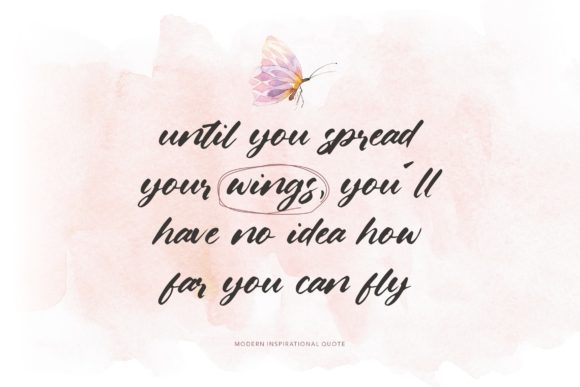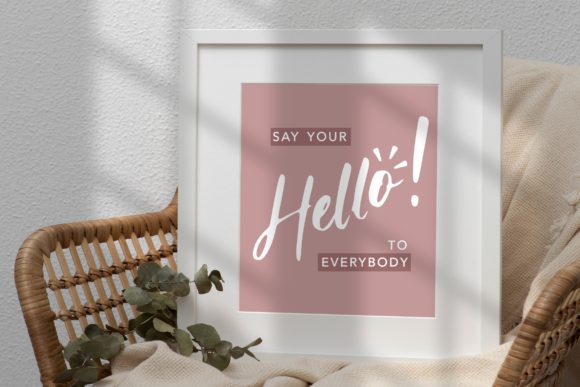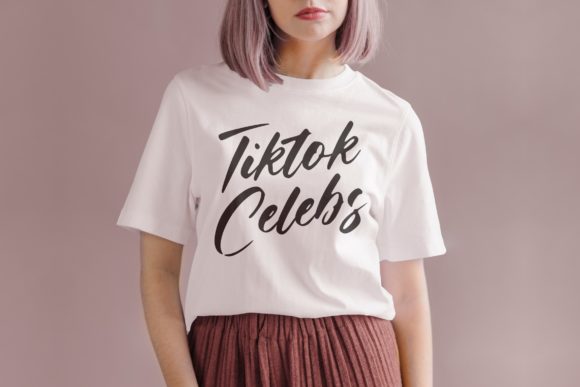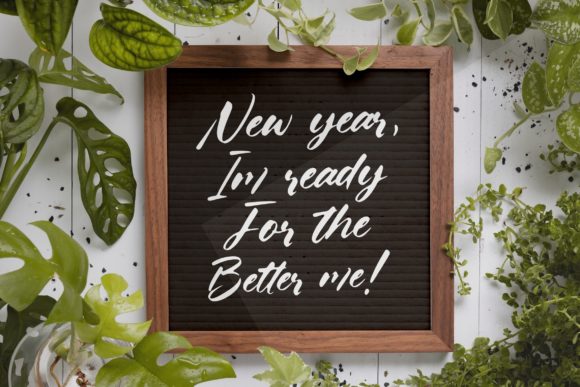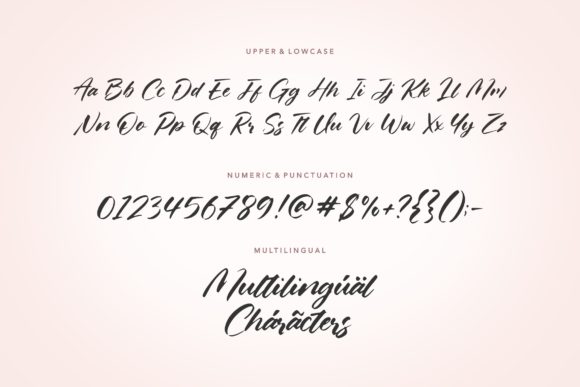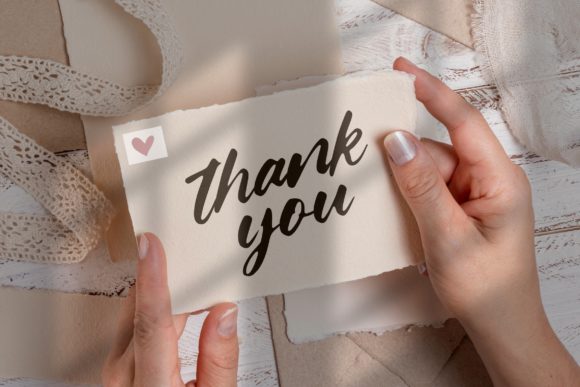
Gladiatore Font
About Gladiatore Font
Gladiatore feels equally charming and elegant. It looks stunning on wedding invitations, thank you cards, quotes, greeting cards, logos, business cards and every other design which needs a customized touch.